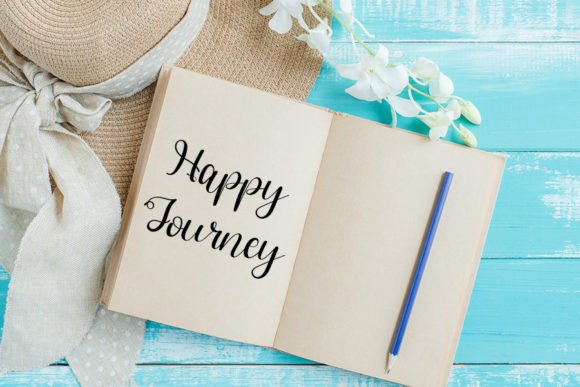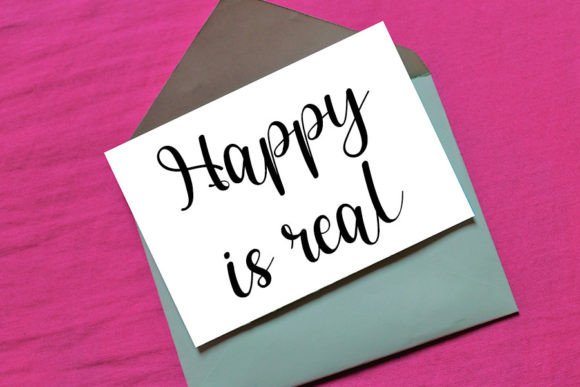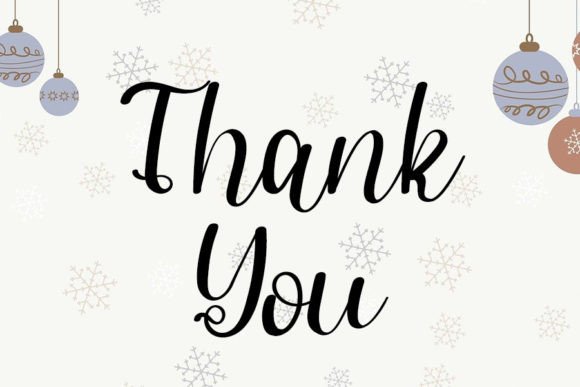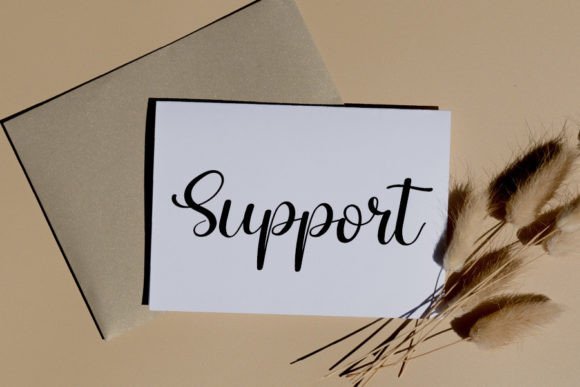
Hello Yummy Font
“Hello Yummy” is a delightful handwritten font that effortlessly combines neatness and elegance, resulting in a typeface that’s perfect for a wide array of creative projects. With its distinct and timeless style, “Hello Yummy” has the potential to infuse your design work with a touch of class and sophistication.
This font’s unique charm lies in its ability to blend a handwritten quality with an elegant touch. The combination of these elements makes “Hello Yummy” a versatile choice for various design applications. Whether you’re creating branding materials, developing social media content, designing invitations, crafting greeting cards, or embarking on any other creative endeavor, “Hello Yummy” is equipped to meet your needs.
The elegant touch of “Hello Yummy” adds a refined and sophisticated feel to your text, making it suitable for projects that require a touch of grace and timelessness. It can transform your designs into visually pleasing and captivating pieces, ensuring they stand out and resonate with your audience.
By incorporating “Hello Yummy” into your design work, you have the opportunity to elevate the overall look and feel of your projects. Its distinct style can set your designs apart and leave a memorable impression on your viewers. Whether you’re a professional designer aiming to enhance your portfolio or an enthusiast looking to add a touch of elegance to your creative endeavors, “Hello Yummy” is a font that can help you achieve your design goals with grace and impact.
In a world where typography plays a crucial role in conveying messages and making visual statements, “Hello Yummy” offers a versatile and visually pleasing option. It’s a font that can effortlessly transition from formal to informal contexts, catering to a broad range of design needs. “Hello Yummy” invites you to explore its distinct and timeless style, and as you do, you’ll discover its potential to enhance your creative projects, leaving them with a touch of elegance that lingers in the minds of your audience.
So, whether you’re crafting branding materials for a client, curating social media content for your brand, or designing elegant invitations for a special event, consider the beauty and versatility of “Hello Yummy” as your go-to font to make your designs truly spectacular.